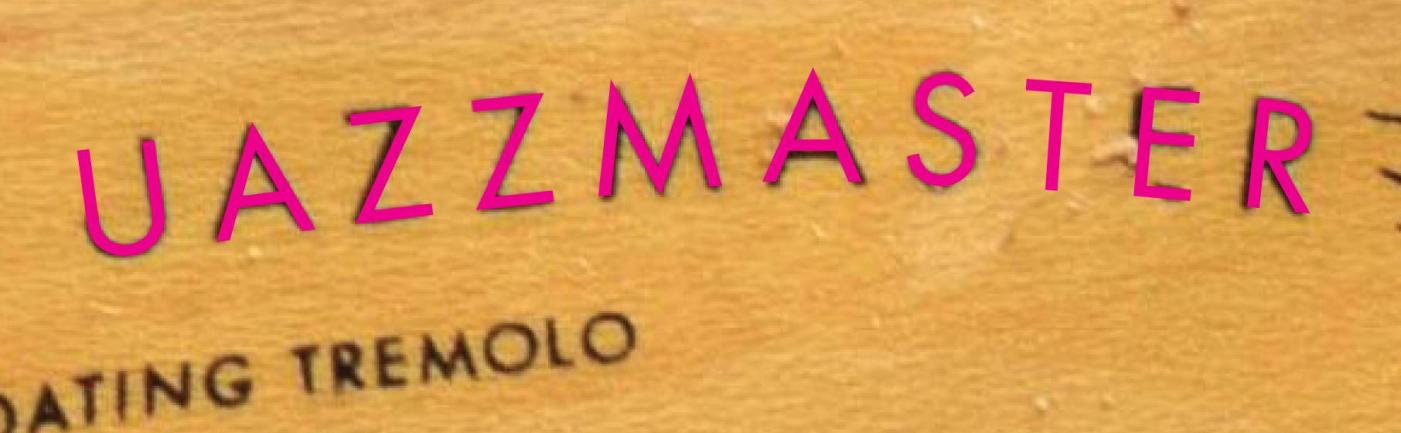
Fender guitars 1952-1967 model name font
I'm looking to find out what font this actually is... it looks very much like a Futura, but the letters are a little bit wider and some glyphs, like the "J" look a little different.
The font is used on Fender guitars between 1952 and 1967 (and the modern reproductions as well), so it has to have existed in the 50s. There is also an "oblique" version used on the word "FLOATING".
I would like to know exactly what typeface this is, and also where to get it. If possible, also a free alternative if it is very very close to the original.
Oh, and there are some repro logos available that seem to use the original typeface, so it seems like there exists a digital version.
Thanks a lot for the answer! Here is an example ...
None of the Futura or Futura lookalikes I examined have a cap /J like the one shown. It may
be that the original actually was Futura but for logo purposes they modified the /J. That is one
solution you might look at.
I did some more reseach and it seems like most repro logos use different fonts – either Futura with the wrong "J" or a mix of Futura and what seems to be Helvetica.
I could imagine the original is some older Futura variant that isn't that easily available today?
After all, it's a US guitar, o they probably didn't just buy the Swiss metal type.
None of the Futura or Futura lookalikes I examined have a cap /J like the one shown. It may
be that the original actually was Futura but for logo purposes they modified the /J. That is one
solution you might look at.
Yes, would kinda make sense. Besides the "J", as I mentioned, when I try to write on top of it whith Futura, at least some letters like the "N" and "H", but possibly all letters, are a little wider.
Here is another look at a good repro. So either the one who did this modifies a Futura, or the font really exists somewhere.
None of these newer examples show typesetting in my opinion. They are just reproductions of the original. And the original also doesn’t have to by typesetting. You wouldn’t create a letterpress forme from moveable metal type and press it onto guitars. That’s not how things were done back then.
But anyway—any skilled graphic designer can recreate the whole design easily using Futura and Brush Script as a starting point.
I could imagine the original is some older Futura variant that isn't that easily available today?
After all, it's a US guitar, o they probably didn't just buy the Swiss metal type.
Since the guitar company was a major one their logos could have been done by an agency in NY, the home of PhotoLettering, Inc. PLI had hundreds of variants of many fonts done by lettering artists of the day. That could be the source of the type, most of which have not been digitized. House Industries owns the collection today.
As to Swiss type, there were a number of distributors back then who imported type from around the world so it wasn't unusual for a typographer to offer imported fonts.
I have this image in my mind of whoever was doing the composition thinking “Futura’s |J| looks pretty weak, especially at the beginning of a word... What if I just mask/erase/cut off part of the |U|...”
Riccardo is right on with his suggestion. Using a /U for the /J, Futura Book looks like a perfect match to me, taking into consideration the original is likely metal type so there will be some slight variation from my Adobe Futura, which was probably done from art supplied by Linotype.
I would say, mystery solved !?!
Great work font sleuths!  Is there any chance any of you can help identify the Ultra Precision Bass?  It's not Futura.
Hi.
The closest I have found is Avenir.